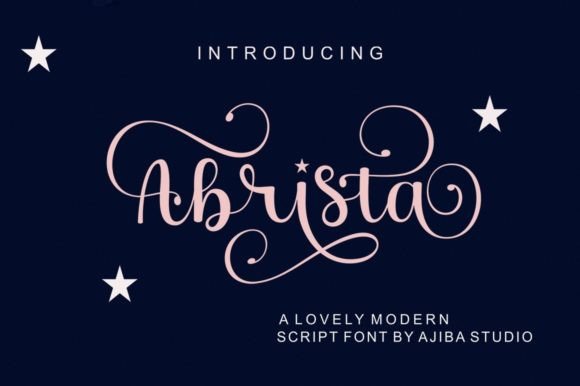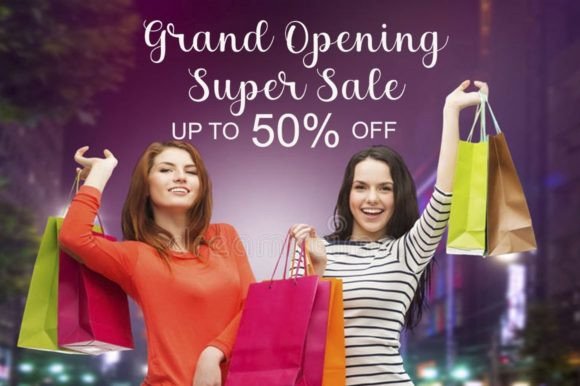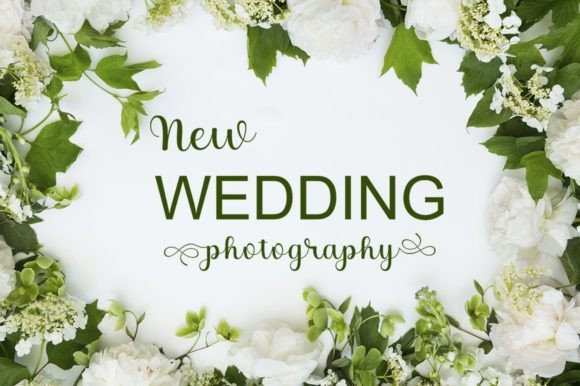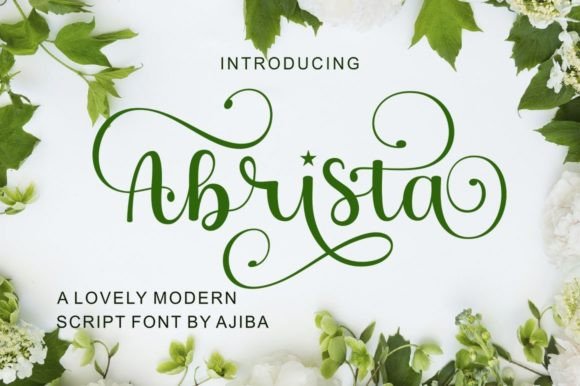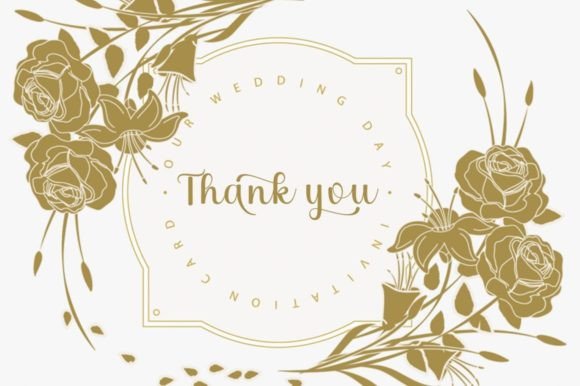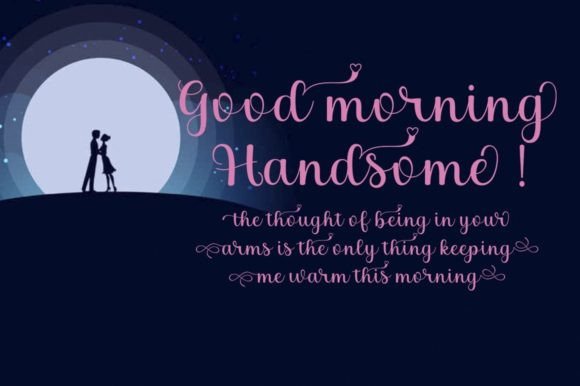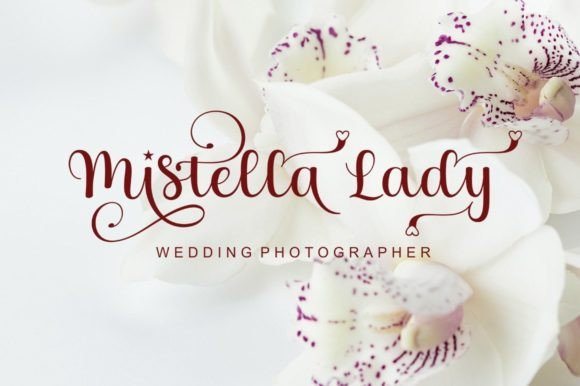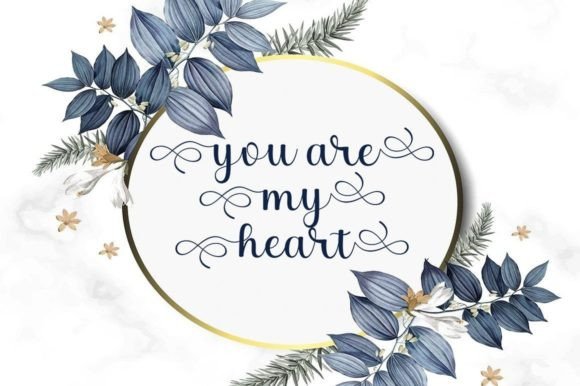
Abrista Font
About Abrista Font
**Abrista** is a truly enchanting handwritten font meticulously crafted to infuse elegance into your designs. Its magical aura transforms ordinary creative ideas into captivating works of art. Whether you’re searching for the perfect font for Instagram posts or calligraphy scripts for DIY projects, **Abrista** adds a touch of sophistication and charm to any creative endeavor.
The font’s graceful curves and elegant strokes create a sense of magic, making it ideal for a variety of applications. Whether used for social media graphics, wedding invitations, branding materials, or artistic projects, **Abrista** elevates the overall visual impact, adding a touch of enchantment to your designs.
**Abrista**’s magical essence is complemented by its versatile design, making it suitable for a wide range of creative purposes. Its PUA encoding ensures easy access to a treasure trove of amazing glyphs and ligatures, allowing you to customize your designs with ease. The font’s ability to blend seamlessly into different design contexts makes it a valuable asset for designers, artists, and enthusiasts seeking to add a touch of elegance and magic to their projects.
By incorporating **Abrista** into your designs, you transform them into captivating masterpieces that captivate the viewer’s imagination. Its magical allure and elegant charm create visually stunning text, ensuring your creative ideas shine with enchantment and grace. Whether used for digital or print projects, **Abrista** adds a touch of magic, transforming your designs into true works of art that leave a lasting impression.